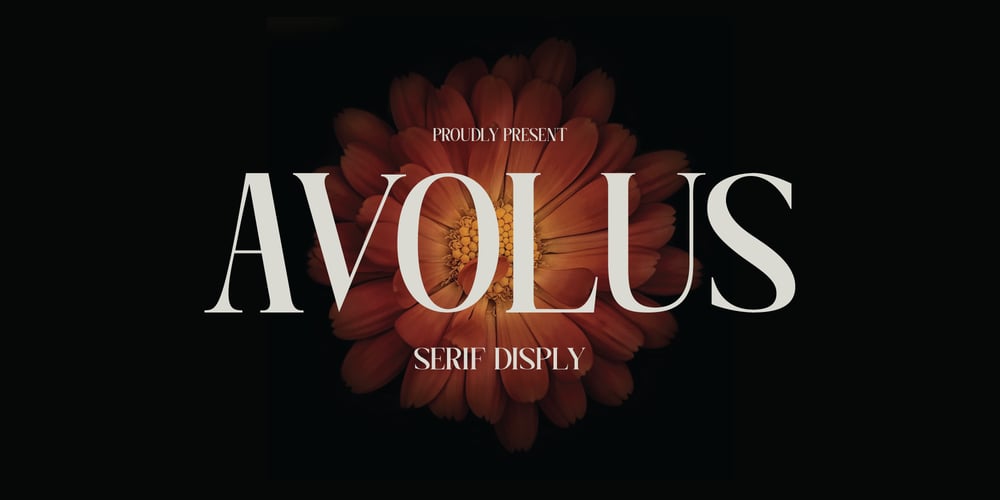
Avolus Font Family was designed by Muhammad Ansari and published by Kaidosan. Avolus contains 1 styles and family package options. Avolus is a cool display font, comprised of a modern and unique style. Fall in love with its incredibly versatile style and use it to create gorgeous wedding invitations, beautiful stationary art, eye-catching social media posts, and much more